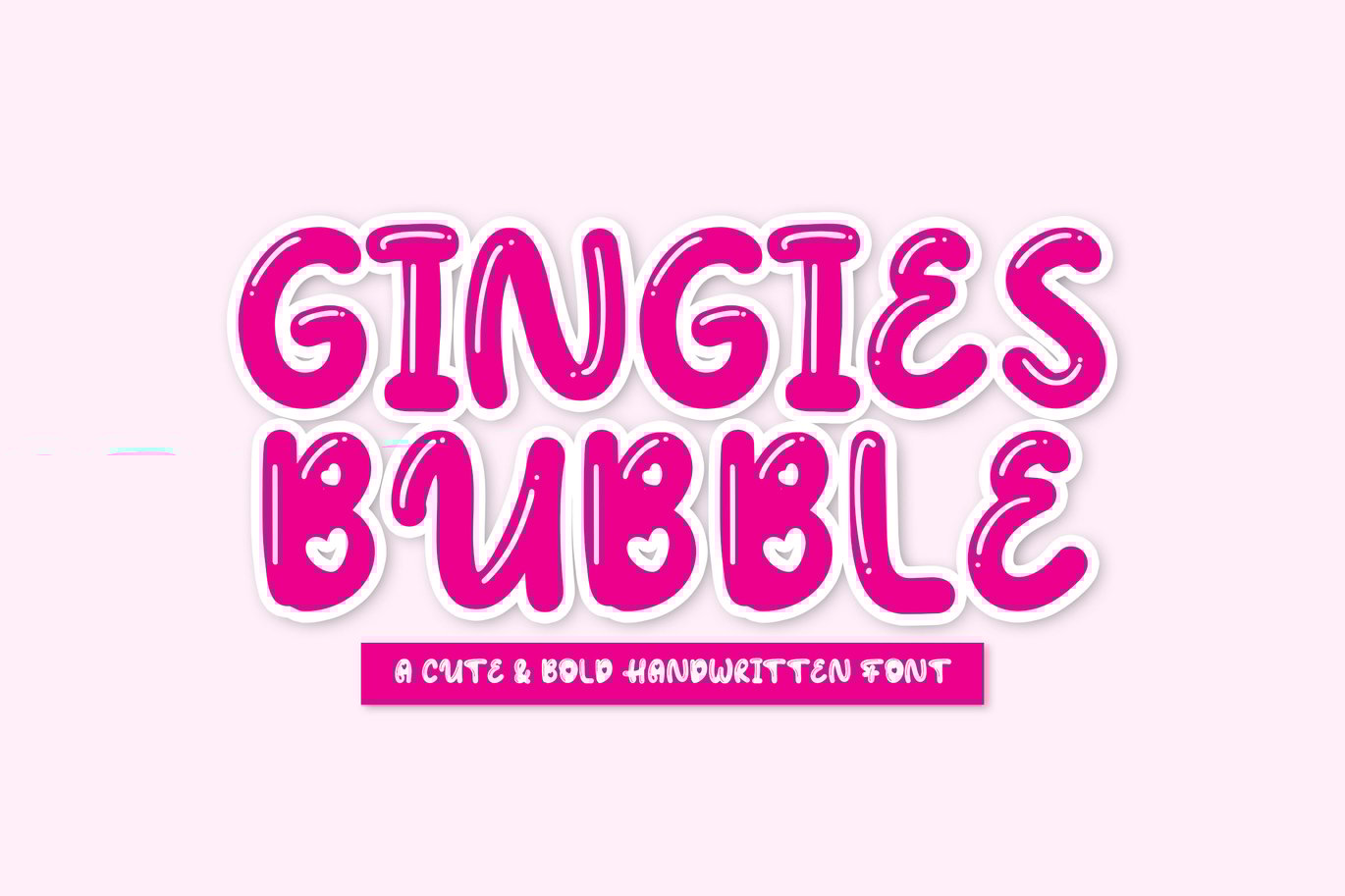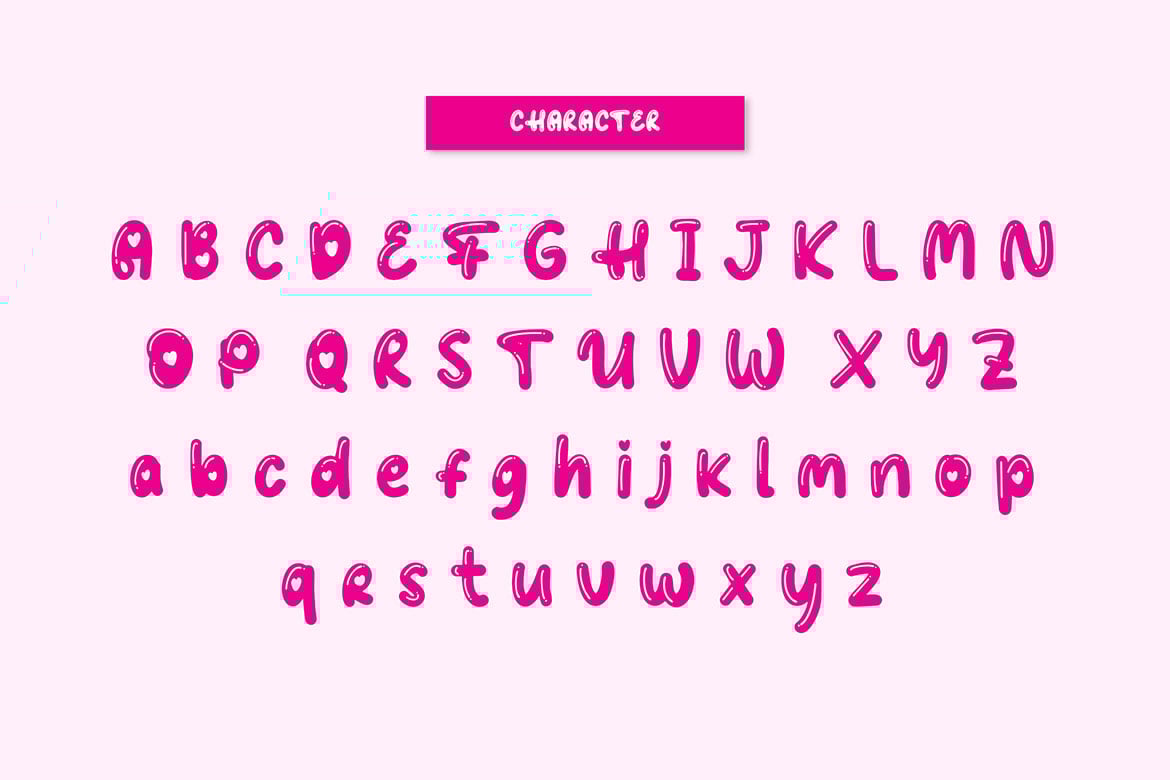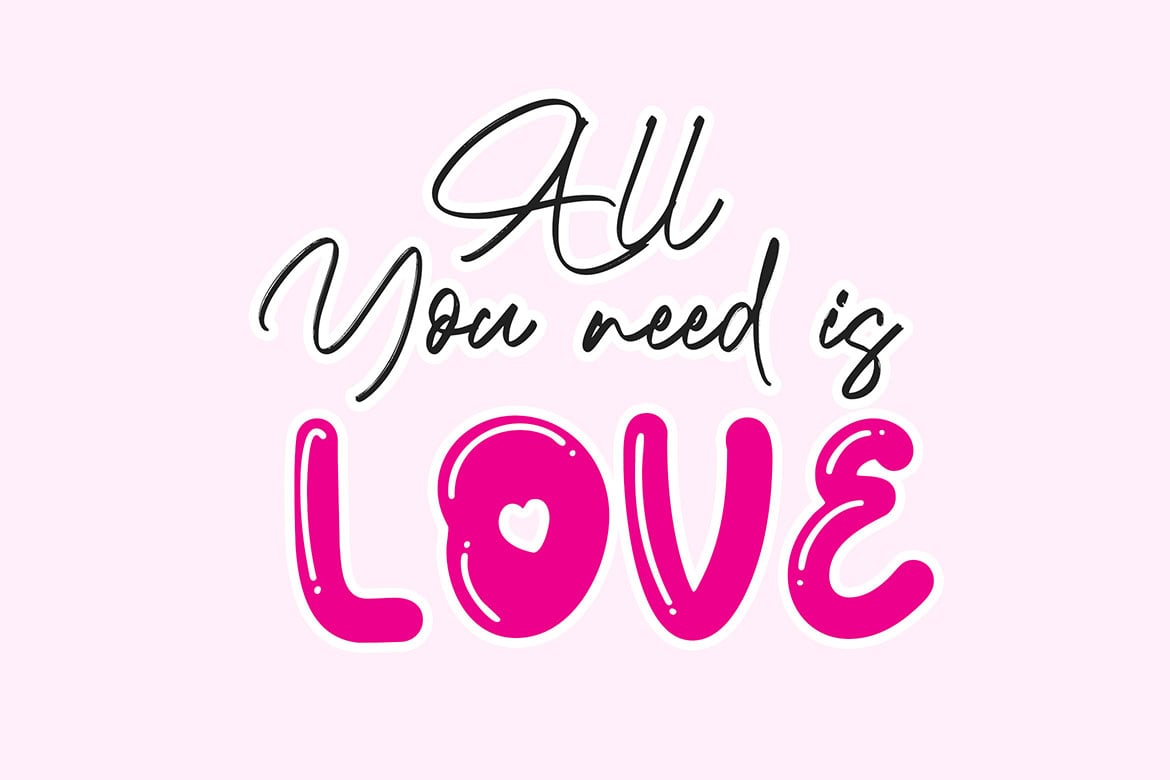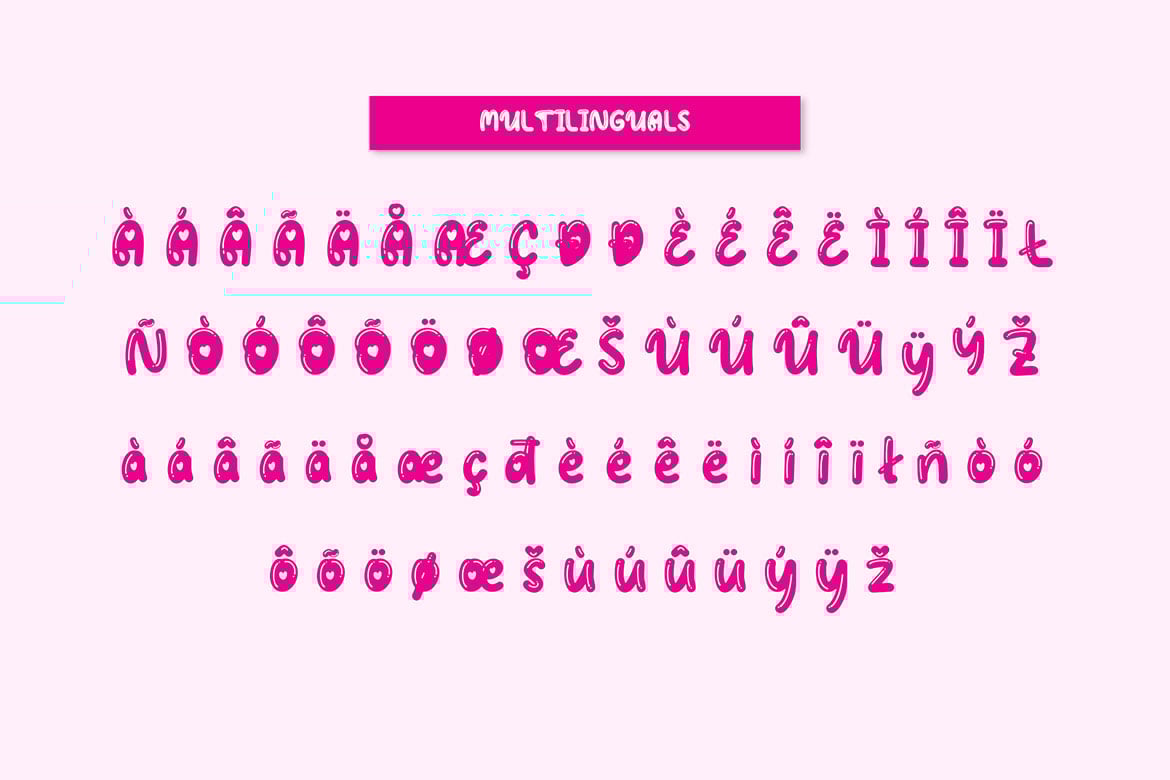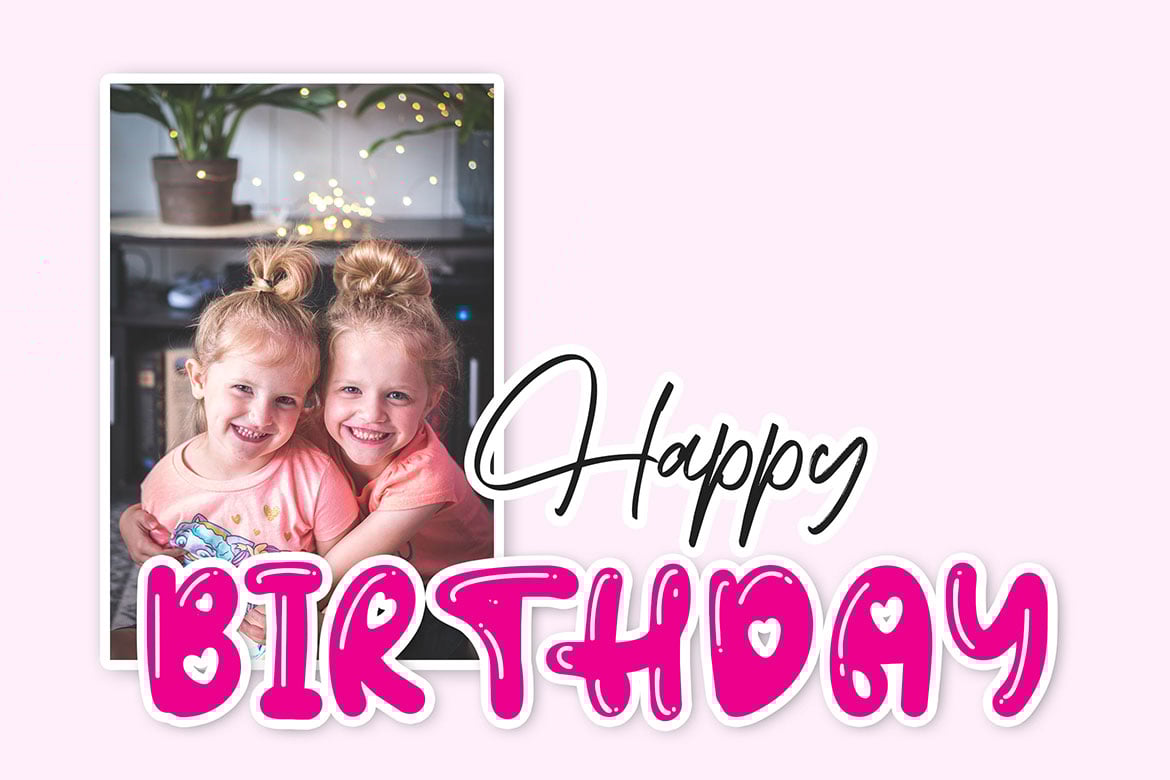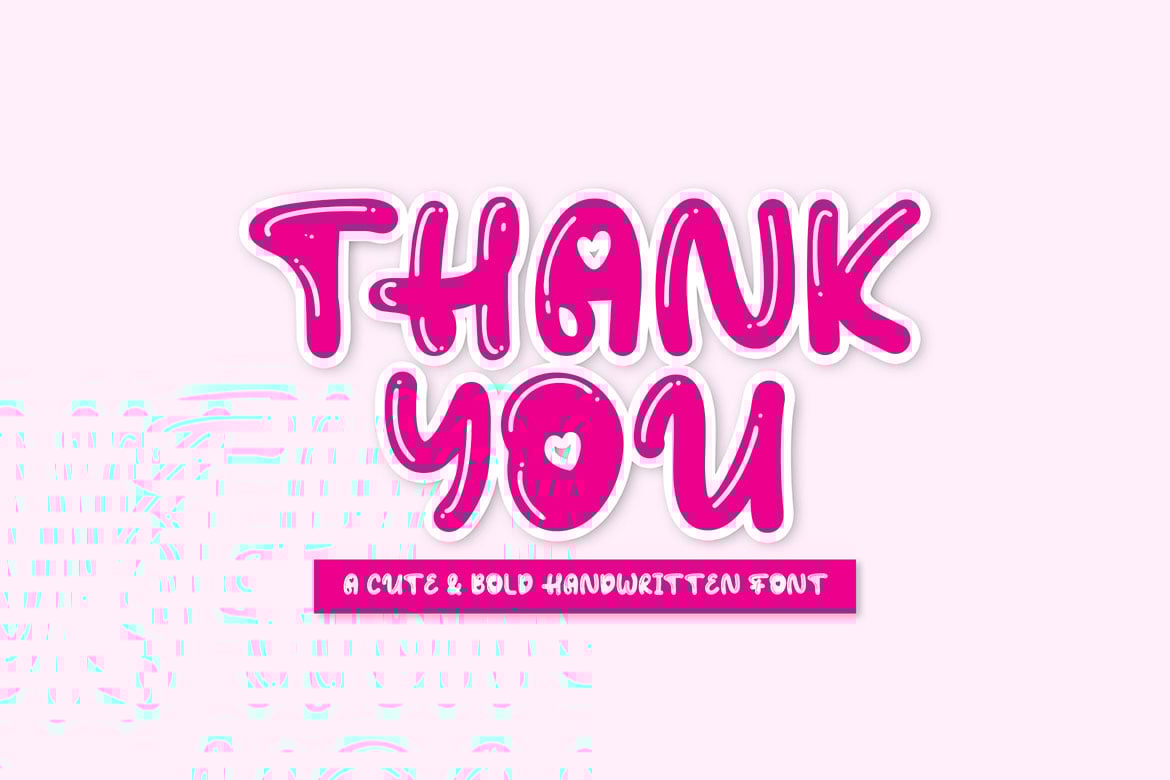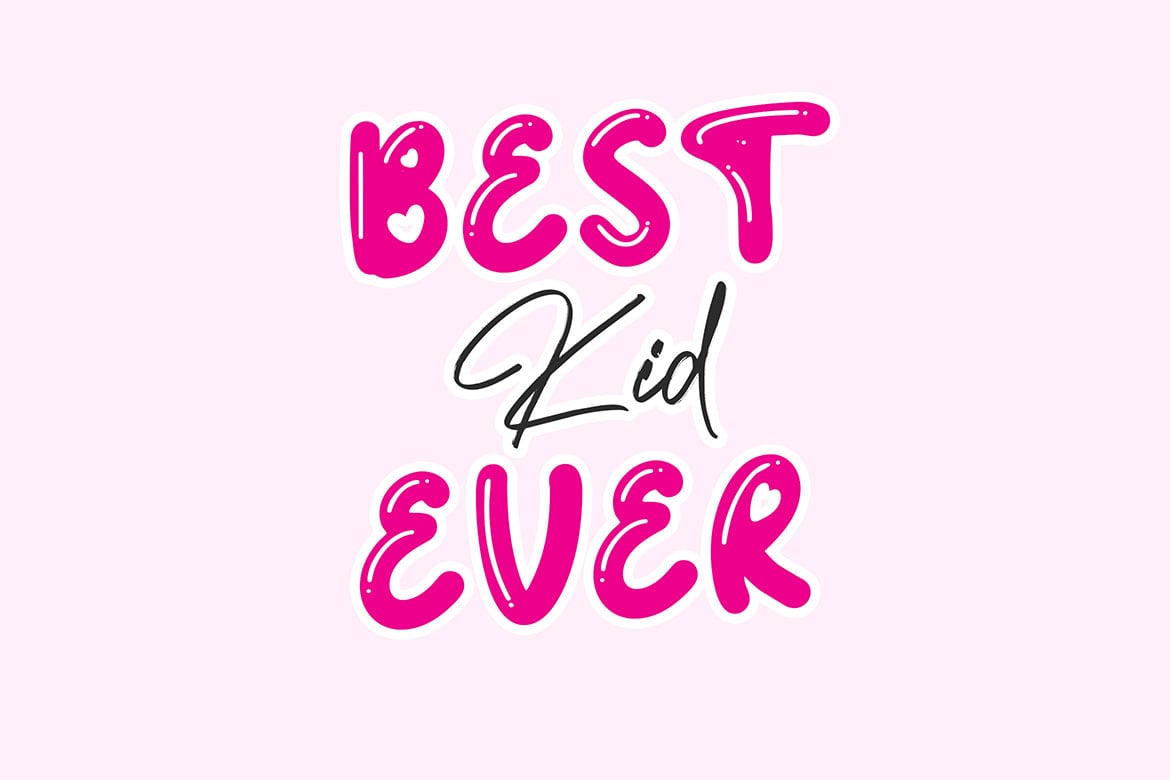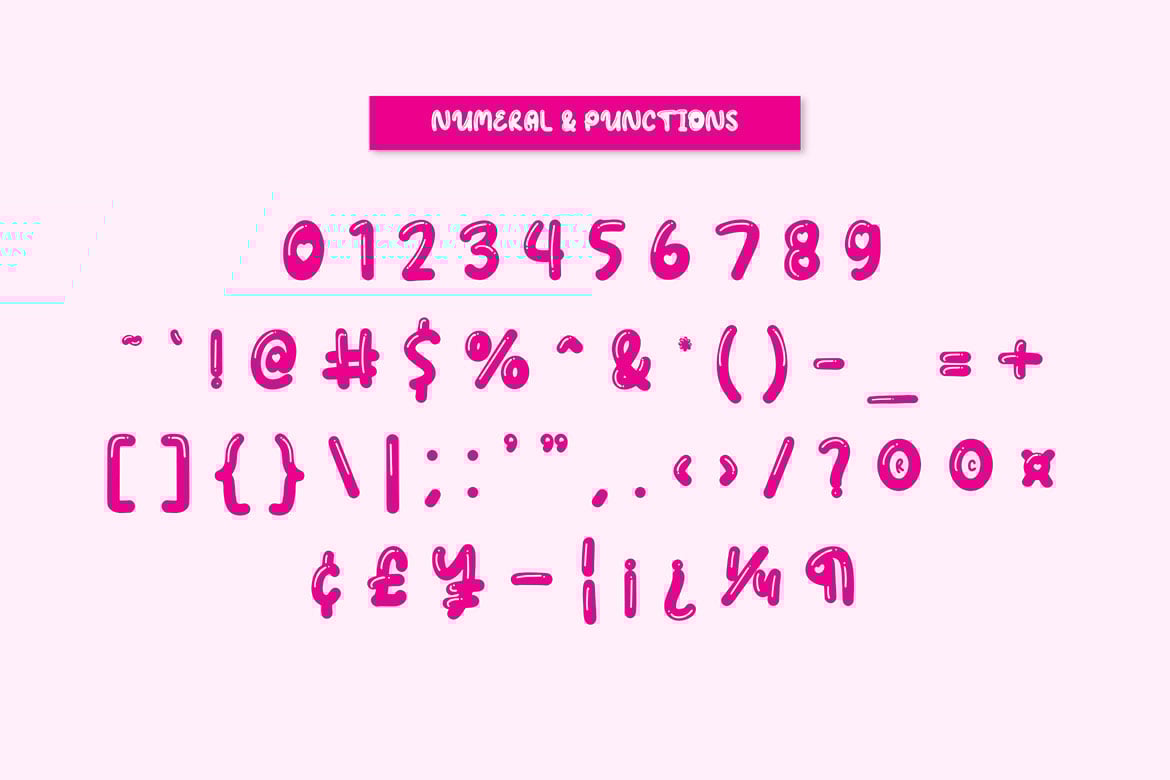
Gingies Bubble – Handwritten Font
Gingies Bubble is a cute, bold, and playful handwritten font. Fall in love with its incredibly versatile style and use it to create beautiful designs!
- Punctions
- Multilinguals